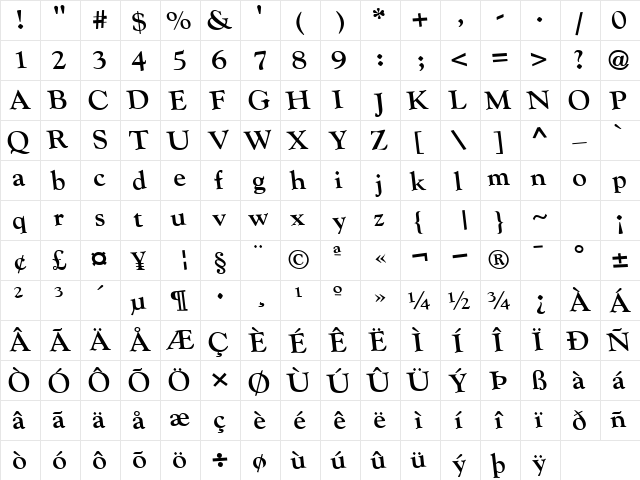
Reversal Regular
Design Context for Reversal Typeface
Reversal offers clean, dependable letterforms without strong stylistic allegiance, making it a practical choice for designers who need flexibility.